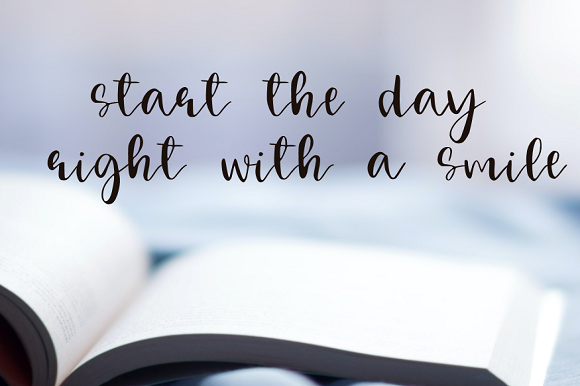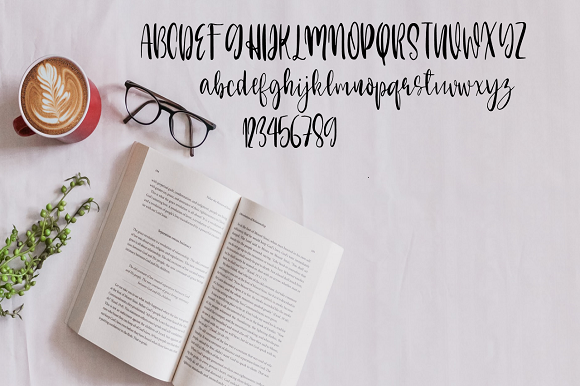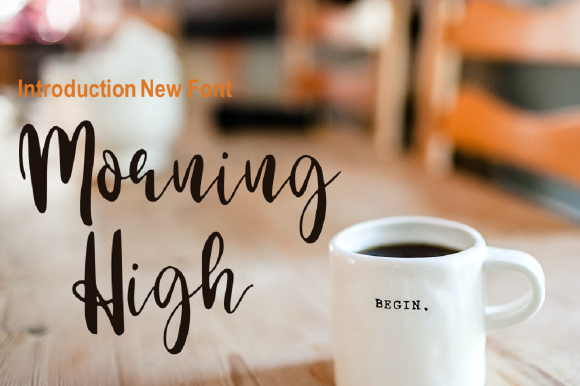
Introduction to Morning High Font
Imagine sitting at your desk, surrounded by endless possibilities, and a blank sheet of paper staring back at you. The blank canvas is calling, and you’re itching to bring your creative vision to life. You’ve got a great idea, but something’s missing – the perfect font to match your artistic style. That’s where the Morning High Font comes in – a charming and adaptable handwritten font that will breathe life into your design project.
With its natural, whimsical flair, the Morning High Font is an absolute treasure trove for designers seeking a high-quality font to elevate their creative project. Whether you’re working on a personal or commercial project, this font is an invaluable resource that will add a touch of sophistication and elegance to your design. Plus, with a transparent background, you can easily superimpose your design onto any background, giving you endless possibilities for experimentation.
Key Features of Morning High Font
- High-quality design: Morning High Font is a premium font designed to meet the needs of creative projects.
- Transparent background: The font features a transparent background, allowing for seamless integration with various design elements.
- Resolution-independent: The font is designed to be resolution-independent, ensuring it looks great on a variety of devices and screens.
- Unique characteristics: This font features a distinctive and elegant design, making it perfect for creative projects that require a touch of sophistication.
- Perfect for creative projects: Morning High Font is ideal for use in logos, branding, and other design projects where a high-quality font is required.
Honest Review: Morning High Font
As a designer, I’m always on the lookout for high-quality design resources to elevate my creative projects. The Morning High Font caught my eye, and I decided to give it a try. Here’s my honest review.
- High-quality design: The Morning High Font has a clean and modern aesthetic that’s perfect for a variety of creative projects.
- Transparent background: This makes it easy to use the font as a background or overlay in your designs.
- Limited font styles: While the font is high-quality, it’s a bit limited in terms of font styles and weights.
- Not suitable for formal projects: The font’s modern aesthetic may not be suitable for formal or professional projects.
Tips for Getting the Most Out of Morning High Font
Experiment with different font sizes, colors, and combinations to create unique and eye-catching designs. Use Morning High Font in conjunction with other design elements, such as graphics and images, to create a cohesive look.
Morning High Font is ideal for creative projects, including:
- Social media graphics and designs
- Logos and branding
- Posters and flyers
- Packaging and labeling